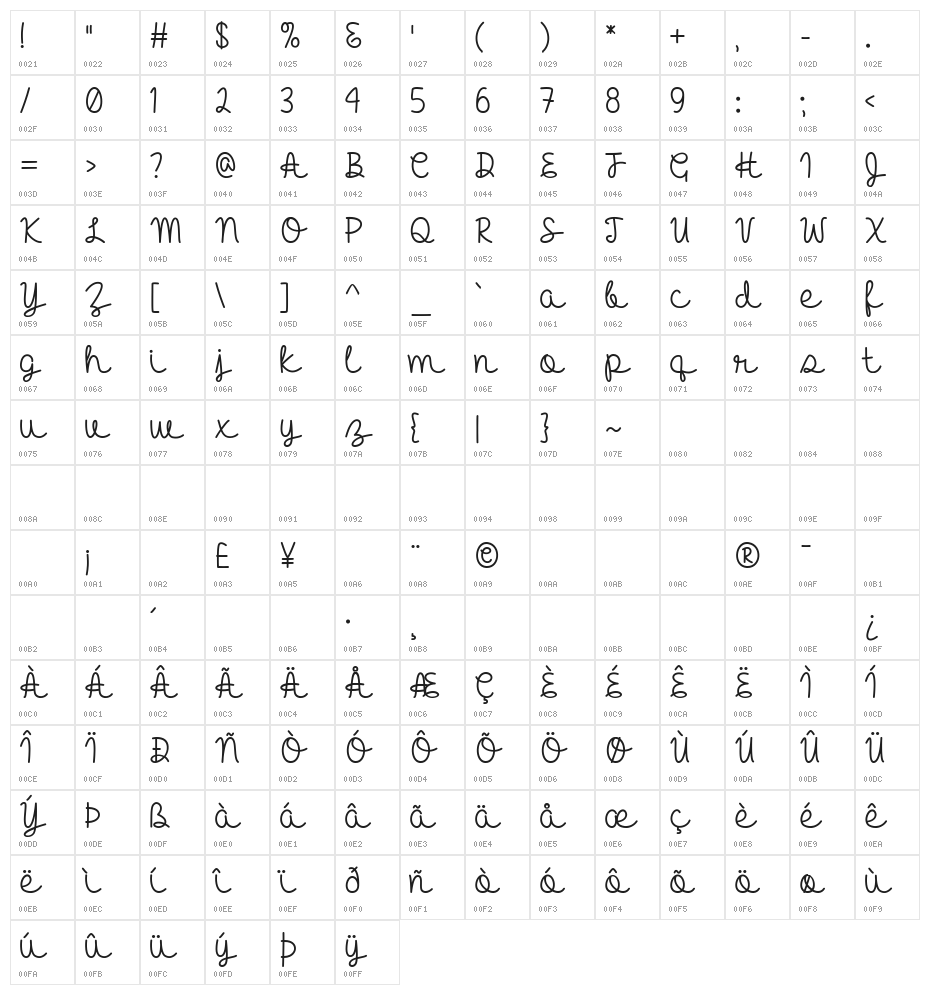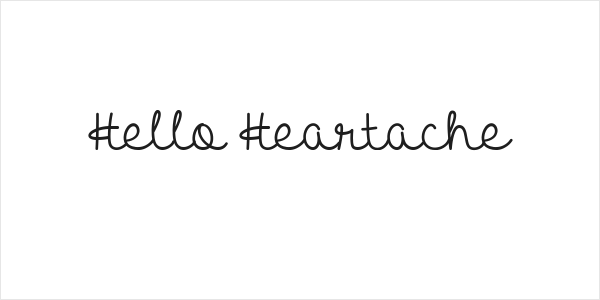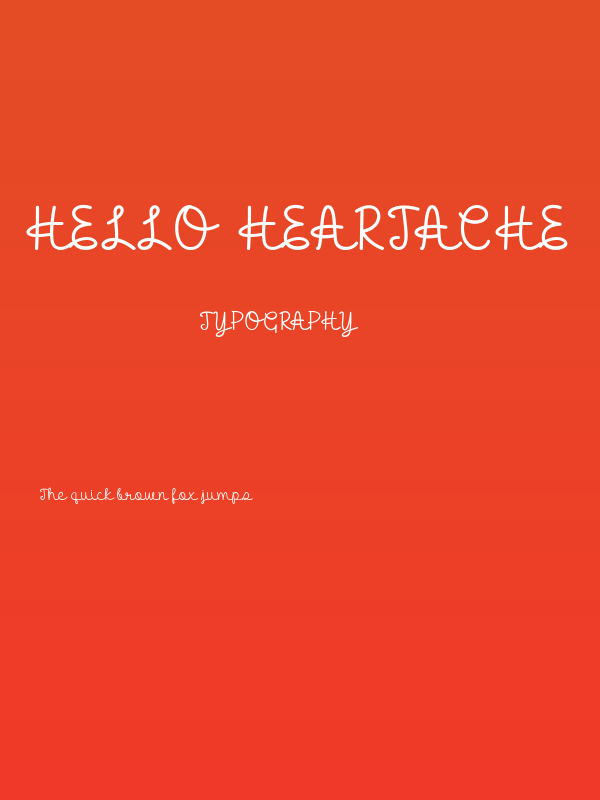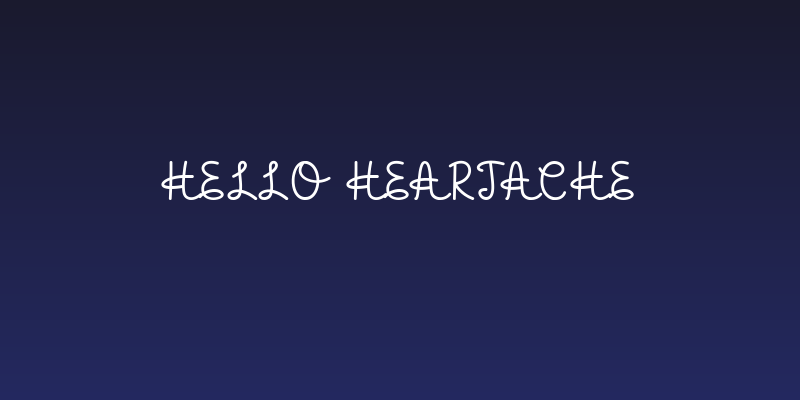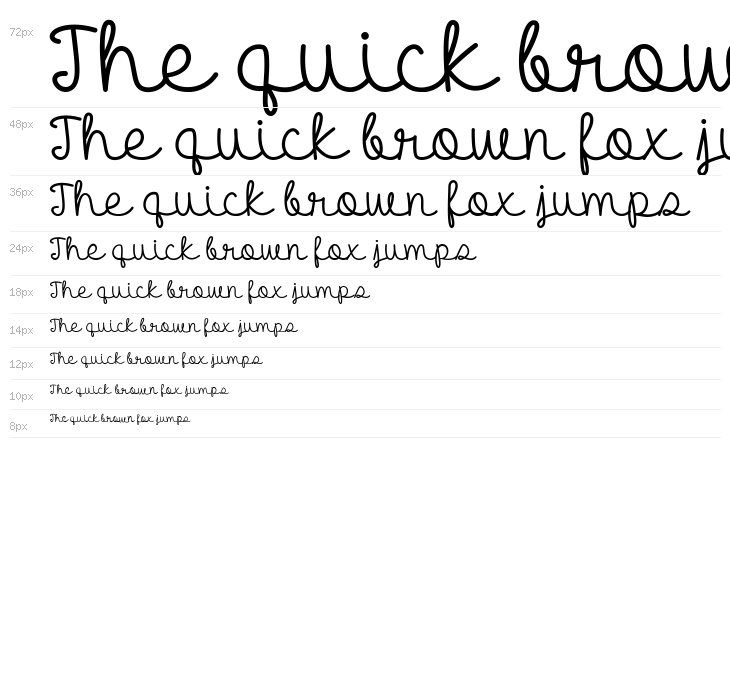
Hello Heartache Font
Hello Heartache Description
This font features a playful and casual handwritten style, characterized by its smooth, flowing lines and rounded edges. The letters are connected in a cursive manner, giving it a friendly and approachable appearance. The uppercase letters maintain a consistent height, while the lowercase letters exhibit a slight slant, enhancing the informal aesthetic. Numbers and special characters are designed to match the overall style, ensuring cohesion across all elements. The font's simplicity and charm make it suitable for a variety of creative projects.
Overall StyleCasual
Use CaseHeadlines, Logos, Invitations
Proposed ProjectsIdeal for greeting cards, invitations, personal branding, and social media graphics.